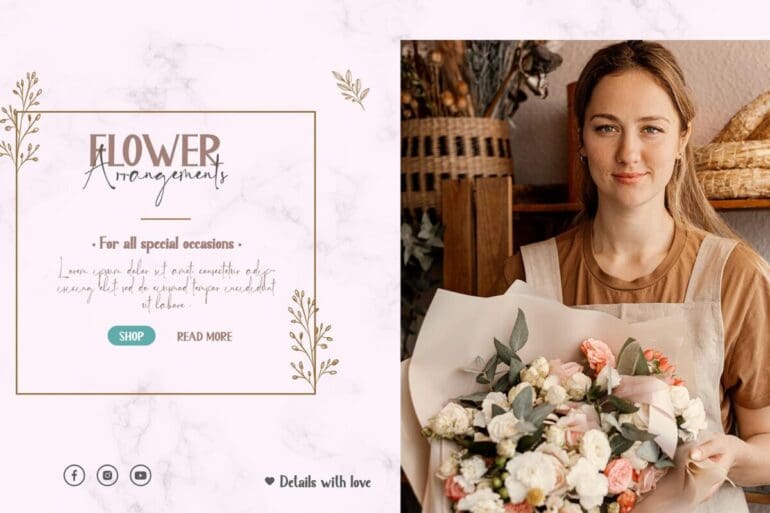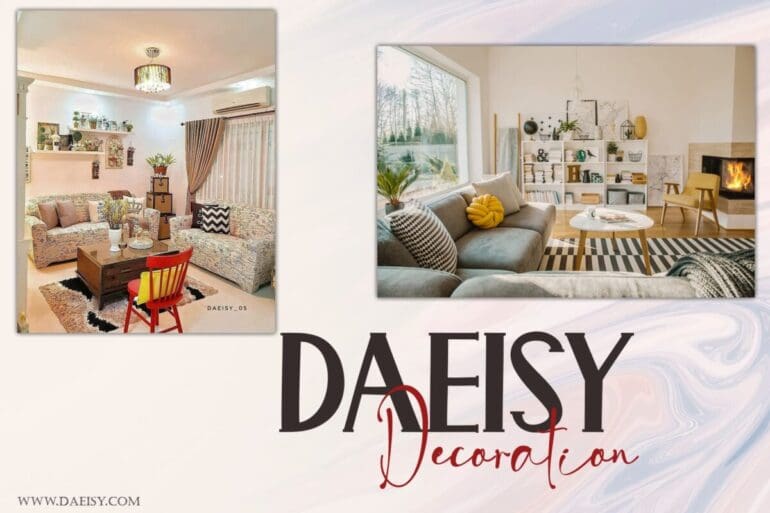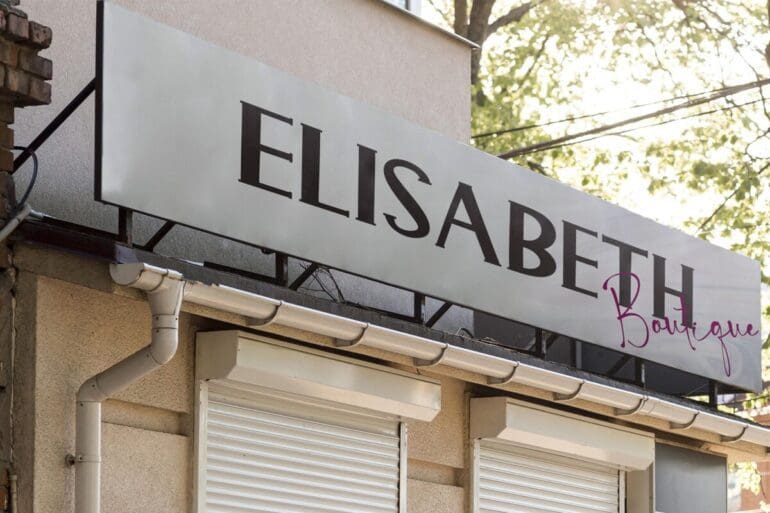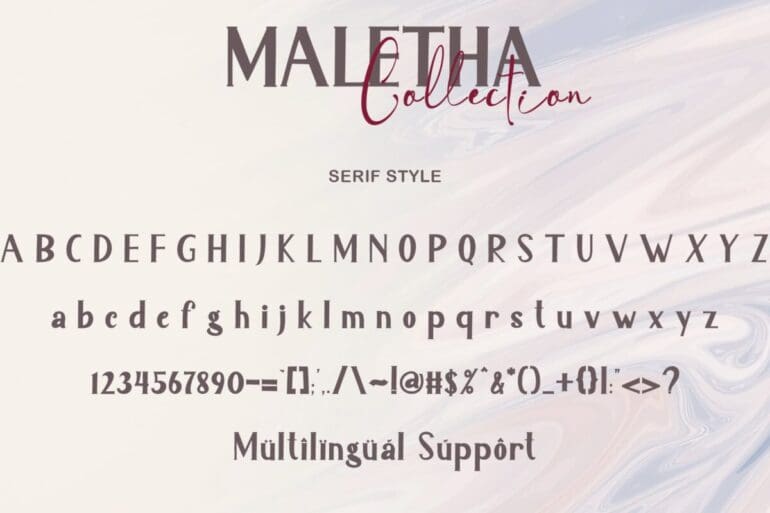
Maletha Collection Font
Maletha Collection is a font duo that combines elegant serif fonts and beautiful signature fonts. This font is very nice and can be used for all kinds of your work. “Maletha Collection” is perfect for making banners, posters, prints, logos, stickers, social media, weddings, promotions, decorations, portraits, presentations, and others. This font is very complete, because it is equipped with basic characters, uppercase, lowercase, multilingual support, numeral and punctuation.